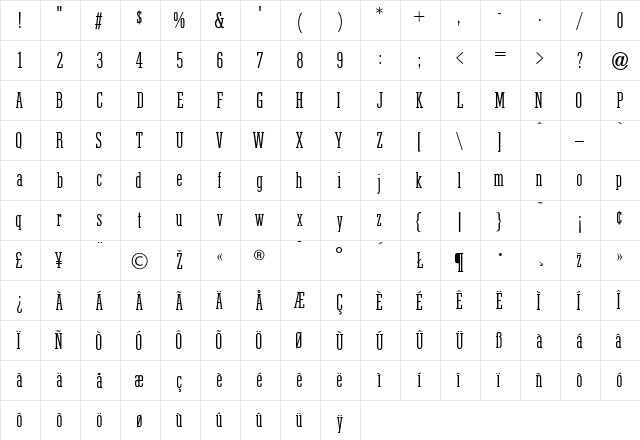
StymieObelisk Regular
Design Context for StymieObelisk Typeface
StymieObelisk takes a measured approach to typography — its balanced proportions and neutral character make it a reliable workhorse for both digital and print work.
Pro Tip: Use StymieObelisk in both headline and body roles to test its range before committing to a single application.